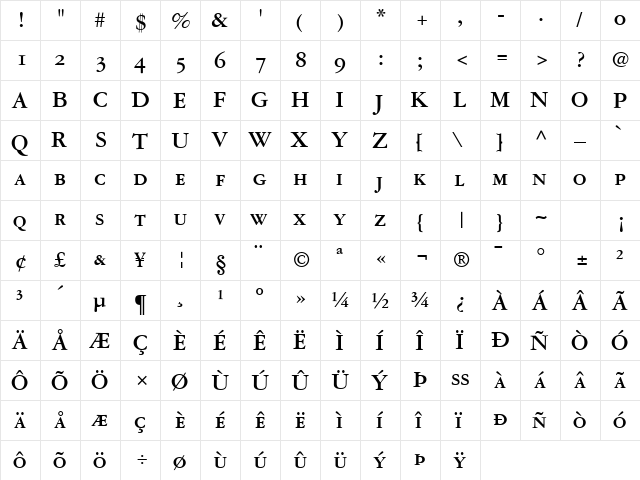
Garamond Reprise OldStyle SSi Bold Small Caps
Design Context for Garamond Reprise OldStyle SSi Typeface
Garamond Reprise OldStyle SSi brings classic typographic sensibility to the table — its serifs and measured letterforms reflect centuries of print heritage. The heavy weight commands attention and anchors typographic hierarchies.
Pro Tip: Use Garamond Reprise OldStyle SSi for editorial body copy and considered headline work. Pair with a neutral sans for UI elements or captions to create a classic hierarchy.